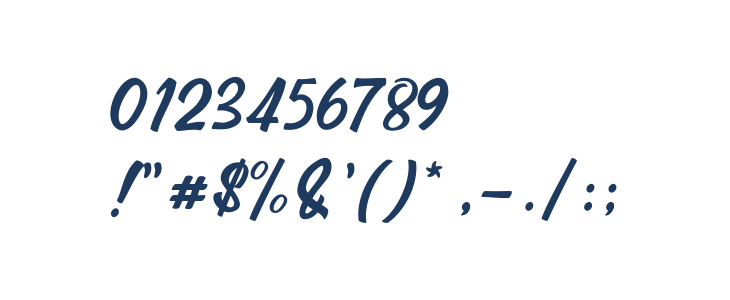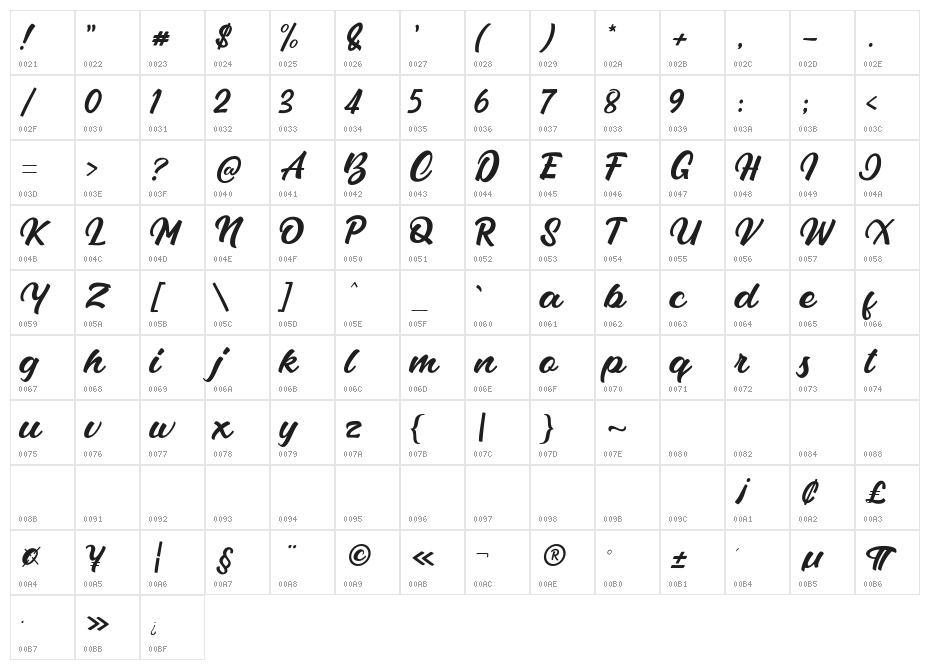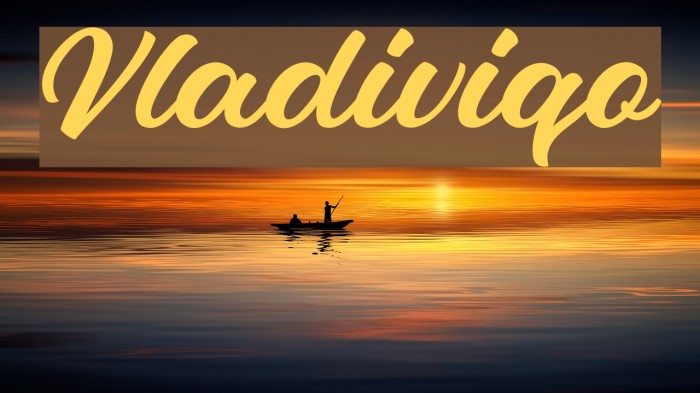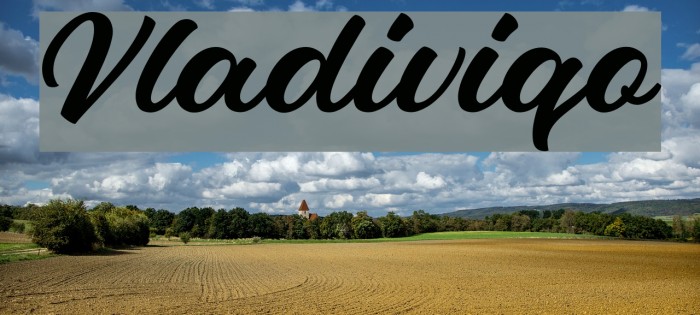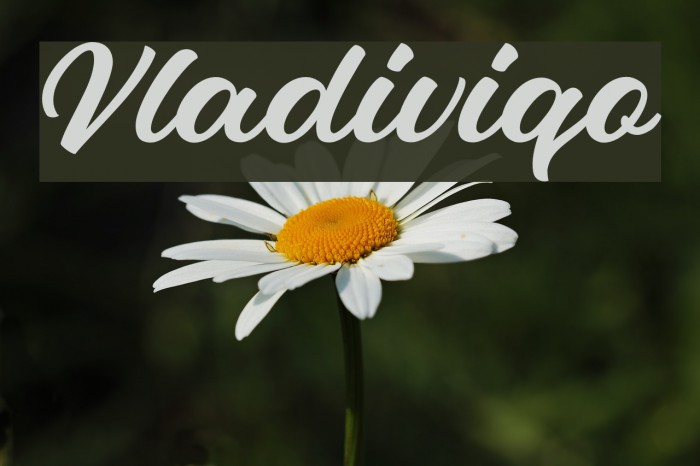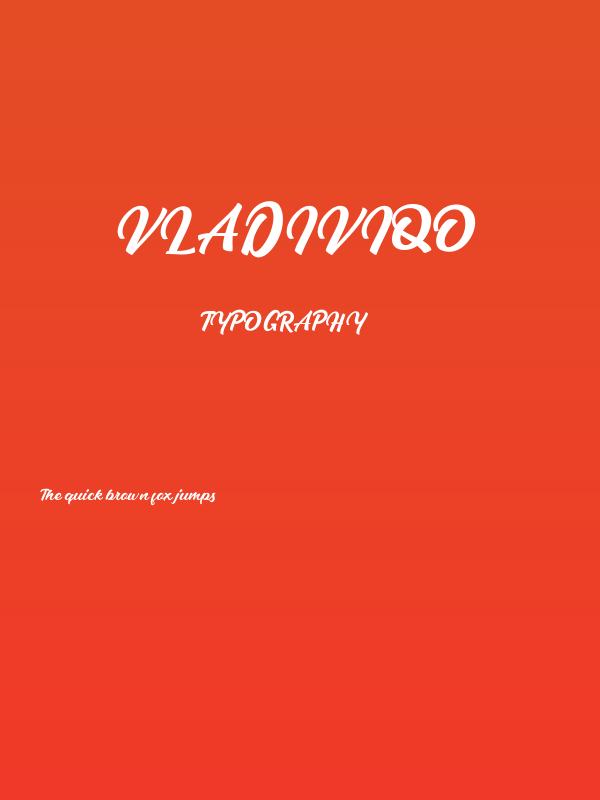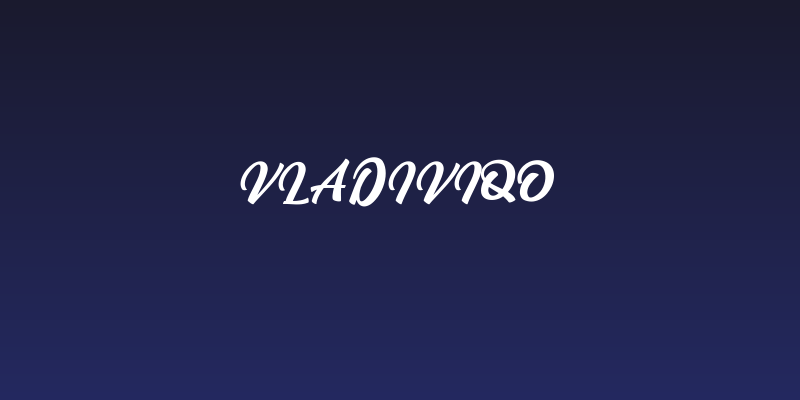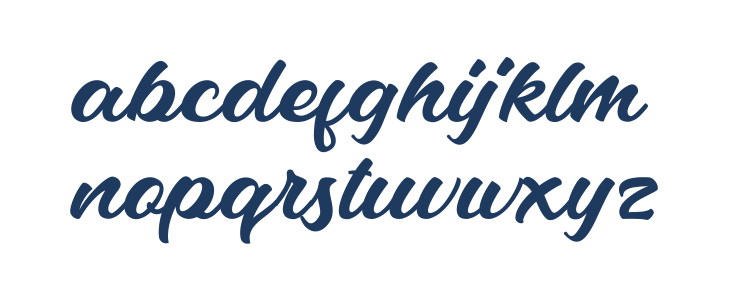
Vladiviqo Font
Vladiviqo Description
This font features a bold, cursive style with a smooth and flowing appearance. The characters are connected, giving it a handwritten feel, yet it maintains a level of elegance and sophistication. The uppercase letters are slightly more elaborate, with flourishes that add a touch of flair. The lowercase letters are more restrained but still maintain the overall fluidity. The numbers and special characters are consistent with the cursive theme, ensuring a cohesive look across all glyphs. This font is ideal for projects that require a personal touch or a sense of elegance.
| Proposed Projects | Ideal for wedding invitations, greeting cards, elegant branding, and personal stationery. |